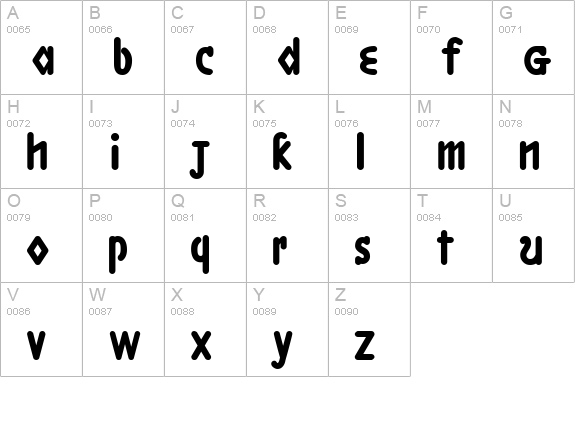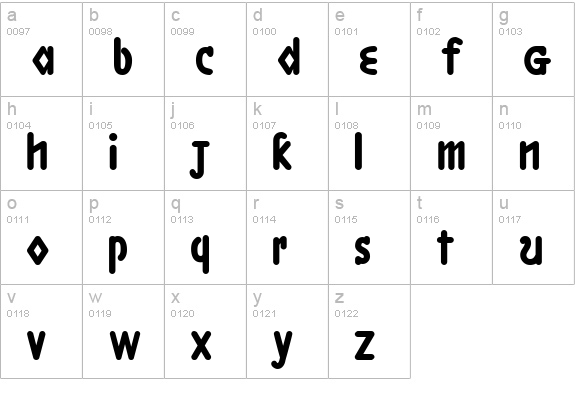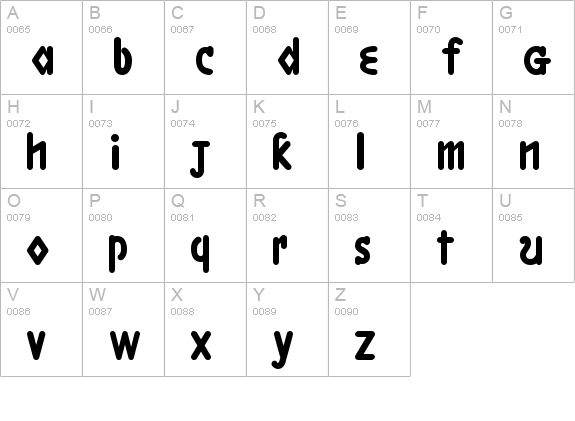
Boston LineBold Aligned Font Details
Introducing Boston LineBold Aligned font, a sleek and modern typeface designed to make a bold statement. With its clean lines and sharp angles, this font exudes confidence and professionalism. Perfect for headlines, titles, and branding projects, Boston LineBold Aligned font is sure to make your text stand out. The best part? This font is available for free download at FontsMarket.com. So go ahead and elevate your designs with the striking Boston LineBold Aligned font today!